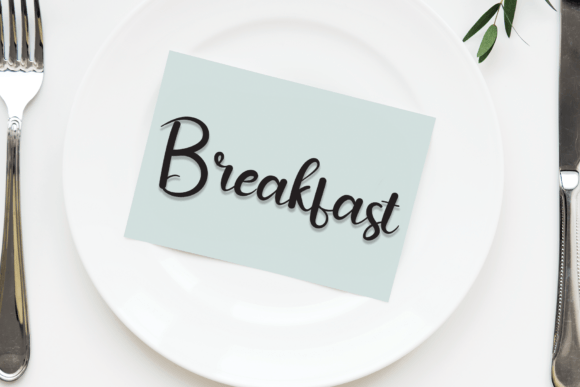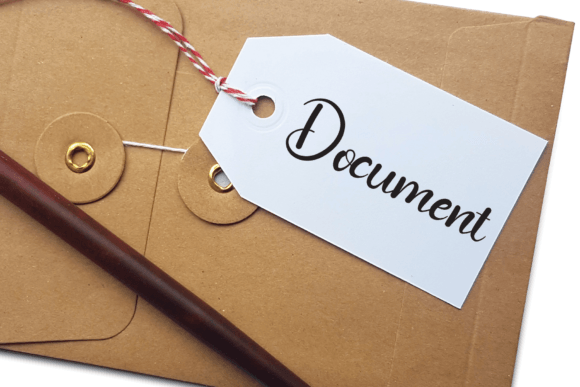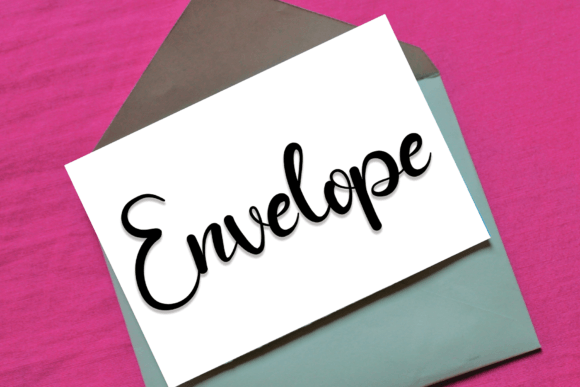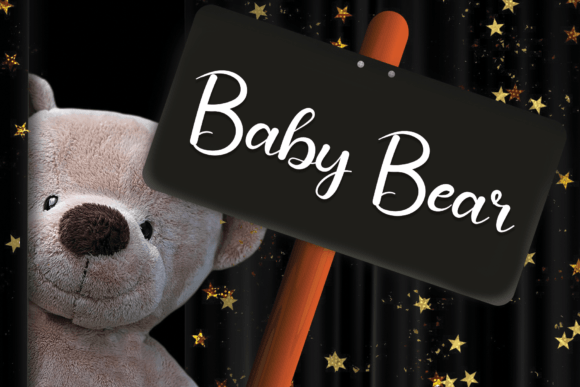
Introducing the Black Light Font: A Fun and Friendly Handwritten Delight
Are you on the hunt for a font that adds a touch of personality to your designs? Look no further than the Black Light Font! This delightful handwritten font is perfect for a variety of projects, from crafts and digital design to presentations and greeting cards. Its versatility and charm make it an excellent addition to any designer’s toolkit.
What Makes the Black Light Font So Special?
The Black Light Font stands out from the crowd with its unique blend of playfulness and friendliness. Its handwritten style gives it a personal and approachable feel, making it ideal for projects where you want to connect with your audience. Whether you’re creating something for a special occasion or just want to add some visual interest to your design, this font is sure to impress.
Uses for the Black Light Font
One of the best things about the Black Light Font is its incredible versatility. Here are just a few ideas to get you started:
• Crafts: Add a personal touch to your handmade crafts, such as scrapbooking, card making, or DIY projects.
• Digital Design: Use the Black Light Font in your digital designs, including social media graphics, blog posts, or website headers.
• Presentations: Add some visual interest to your presentations with this eye-catching font.
• Greeting Cards: Create personalized and heartfelt greeting cards for any occasion.
Why You’ll Love the Black Light Font
So, what makes the Black Light Font so lovable? Here are just a few reasons why it’s sure to become your go-to font:
• Easy to Read: Despite its playful style, the Black Light Font is surprisingly easy to read, making it perfect for both digital and print projects.
• Highly Versatile: Use it for a wide range of projects, from formal to informal, and everything in between.
• Unique Style: The Black Light Font has a distinctive style that’s sure to set your designs apart from the crowd.
Tips for Using the Black Light Font
To get the most out of the Black Light Font, here are a few tips to keep in mind:
• Pair it with Other Fonts: Experiment with pairing the Black Light Font with other fonts to create interesting and dynamic designs.
• Play with Colors: Don’t be afraid to try out different colors and color combinations to add depth and visual interest to your designs.
• Experiment with Sizes: The Black Light Font looks great in a variety of sizes, so don’t be afraid to experiment to find the perfect fit for your project.
In conclusion, the Black Light Font is a fun and friendly handwritten font that’s sure to become your new favorite. Its versatility, charm, and ease of use make it an excellent addition to any designer’s toolkit. Whether you’re a seasoned pro or just starting out, this font is sure to inspire your creativity and take your designs to the next level.